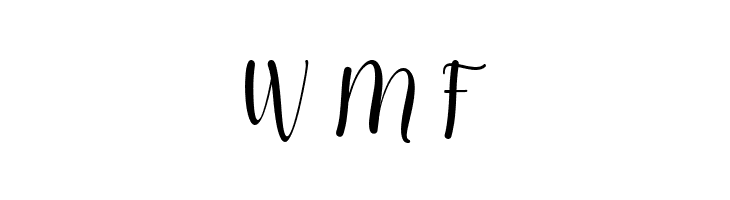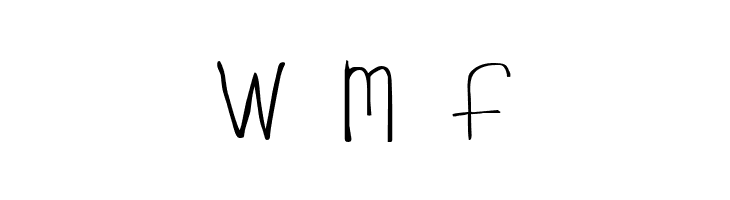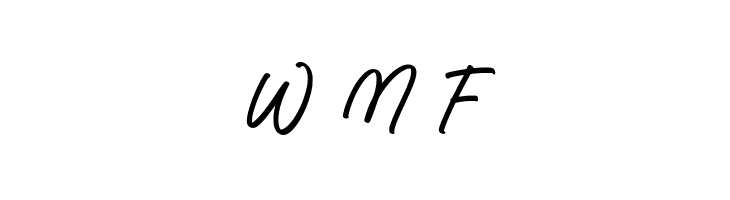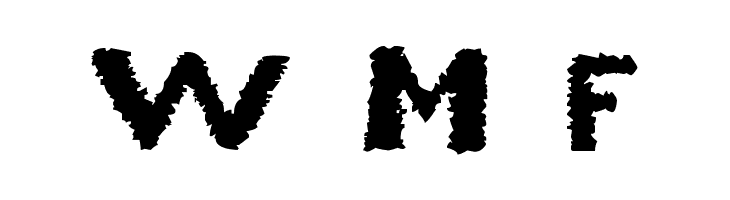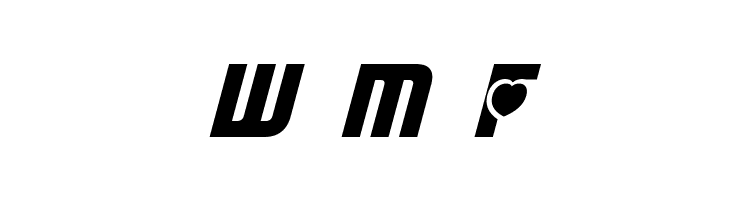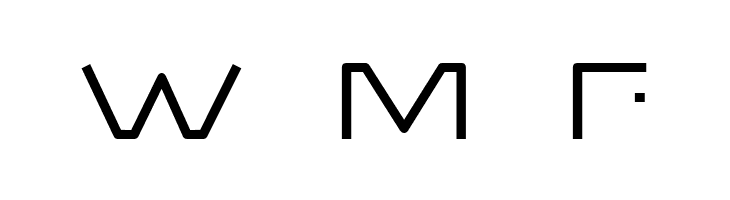
A bold, heart-themed font perfect for romantic and playful designs.
A bold, italicized font with heart motifs and a playful, modern style.
A bold, textured font with a hand-drawn, sketched appearance.
A bold, playful handwritten font with a casual and friendly vibe.
A geometric font with characters formed by small triangles, offering a modern and bold look.
A modern, geometric font with characters formed by interconnected triangles.
A bold, tribal-inspired font with intricate, flame-like patterns.
A dynamic and lively handwritten font with fluid strokes.
A playful, decorative font with a handwritten style and bold, flowing characters.
A whimsical, handwritten font with playful and dynamic strokes.
Cartoonish, dentistry-themed illustrative font with playful characters.
A playful, hand-drawn font with tall, narrow letters and a whimsical style.
A bold, decorative font with spiral designs within each character.
A playful, double-line decorative font with a whimsical and dynamic style.
A hand-drawn, edgy font with angular, intersecting lines and a sketch-like appearance.
A bold, collegiate-style font with strong, block-like characters.
A modern sans-serif font with geometric shapes and uniform strokes.
A playful and elegant script font with flowing, cursive letters.
A bold, geometric font with angular shapes and a modern, futuristic style.
A bold, geometric font with angular shapes and a modern aesthetic.
A bold, geometric font with sharp angles and a modern look.
A flowing, cursive script font with elegant, connected characters.
A bold, stencil-like font with an industrial, impactful design.
A flowing, cursive font with elegant, sweeping strokes and a handwritten appearance.
A playful and elegant script font with a handwritten feel.
A playful, rounded font with smooth curves and a friendly appearance.
A playful, rounded font with smooth curves and uniform strokes.
A whimsical and elegant script font with flowing, interconnected letters and playful loops.
A playful, heart-themed font perfect for romantic designs.
A bold geometric sans-serif paired with an elegant script lowercase.